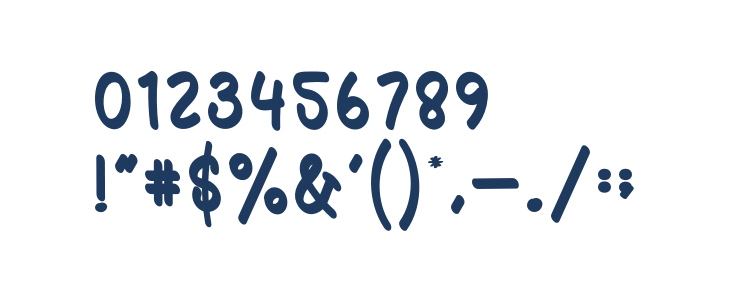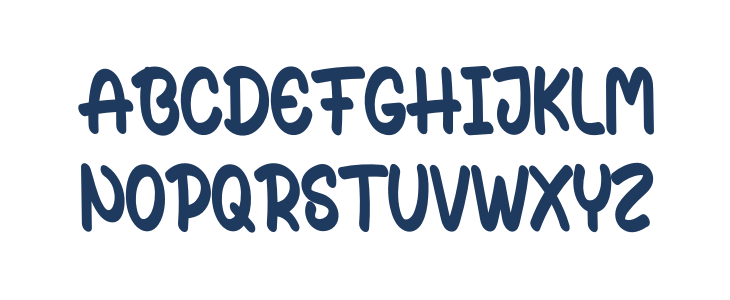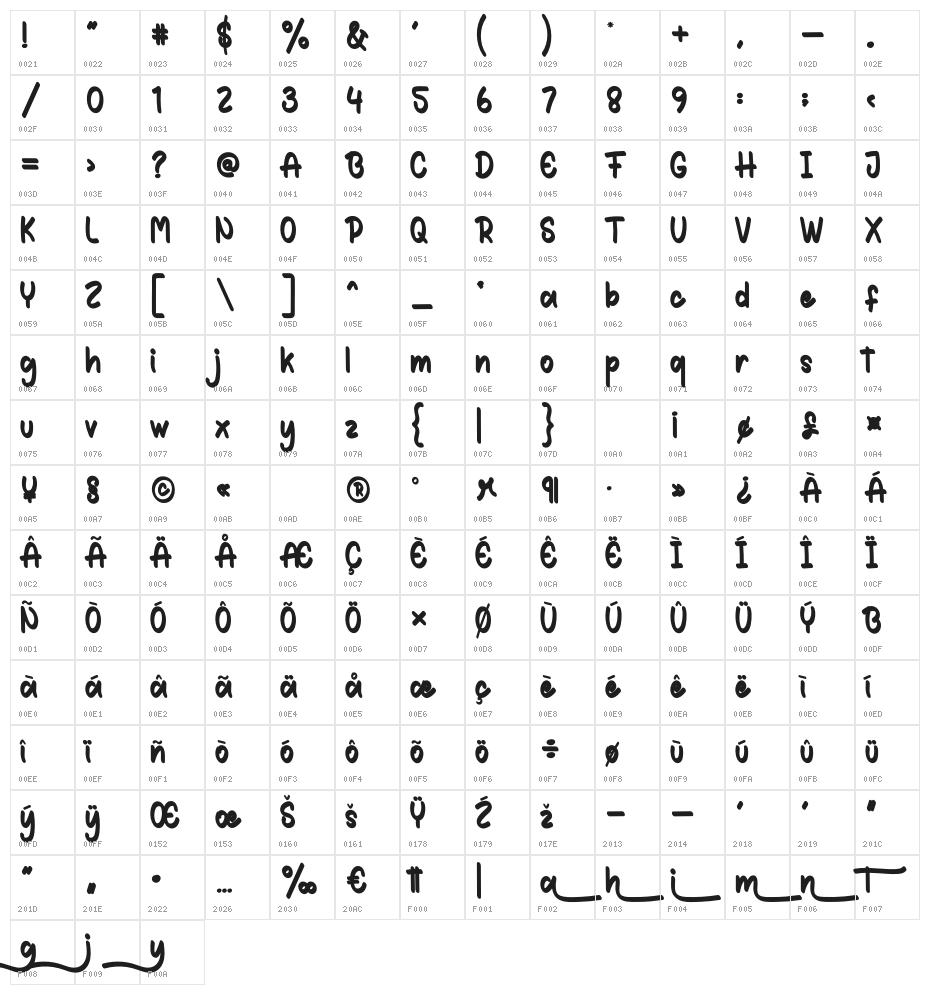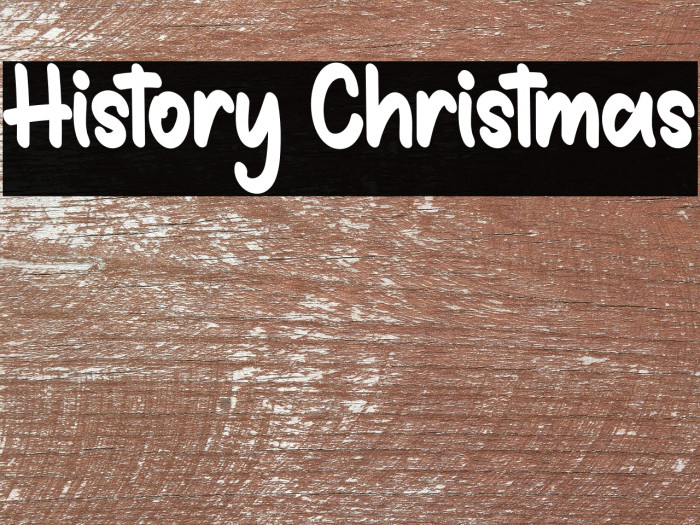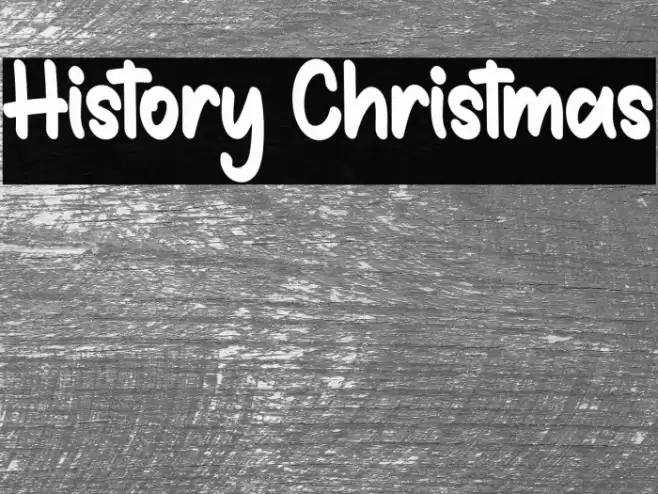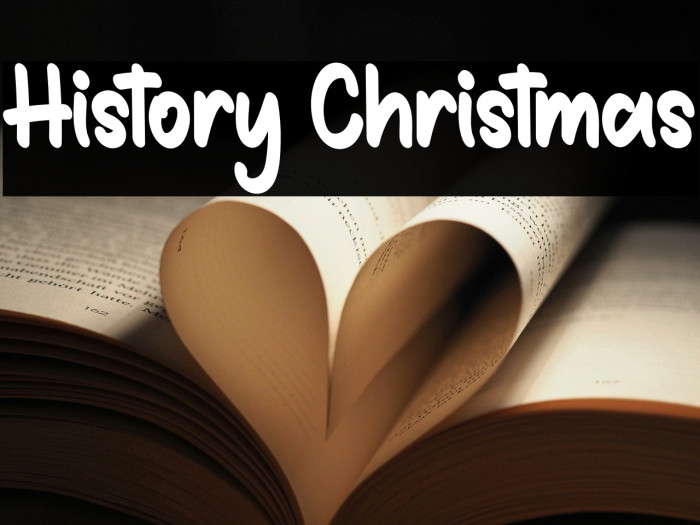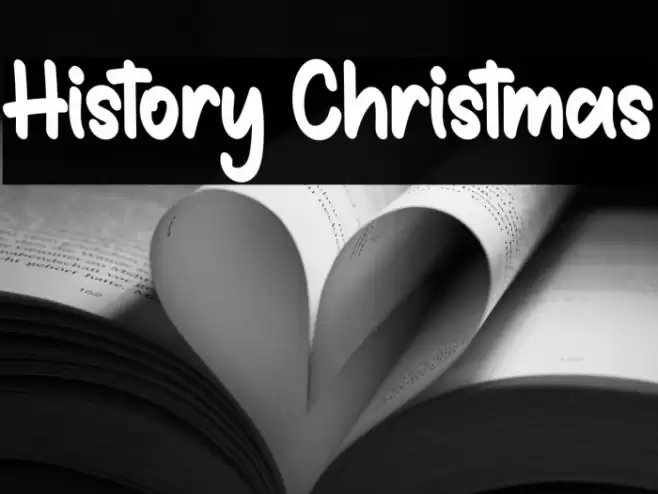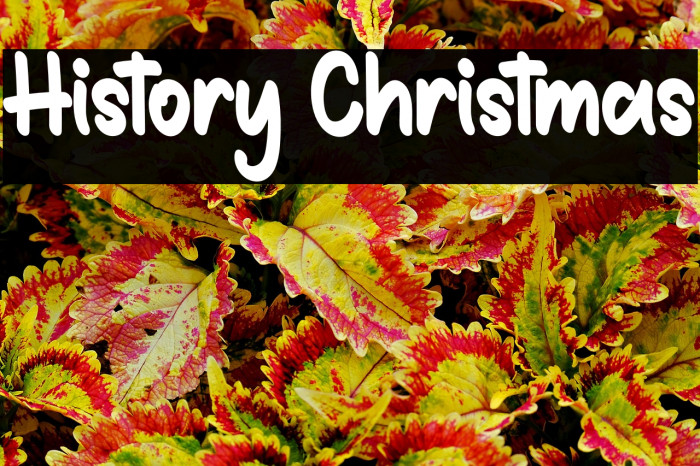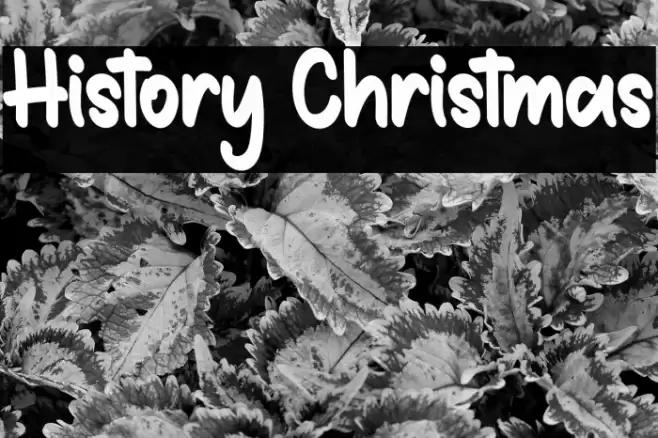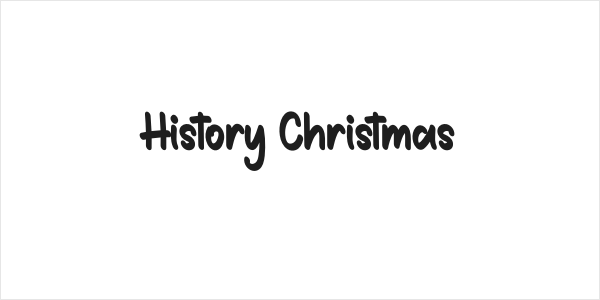
History Christmas Font
History Christmas Description
A playful, rounded handwritten typeface with bold strokes and a casual, friendly appearance. The characters are slightly irregular, giving it an informal and approachable feel.
Overall StylePlayful, Casual, Decorative
Use CaseHeadlines, Posters, Greeting cards, Informal branding
Proposed ProjectsGreeting cards, children's books, holiday invitations, posters, playful branding.